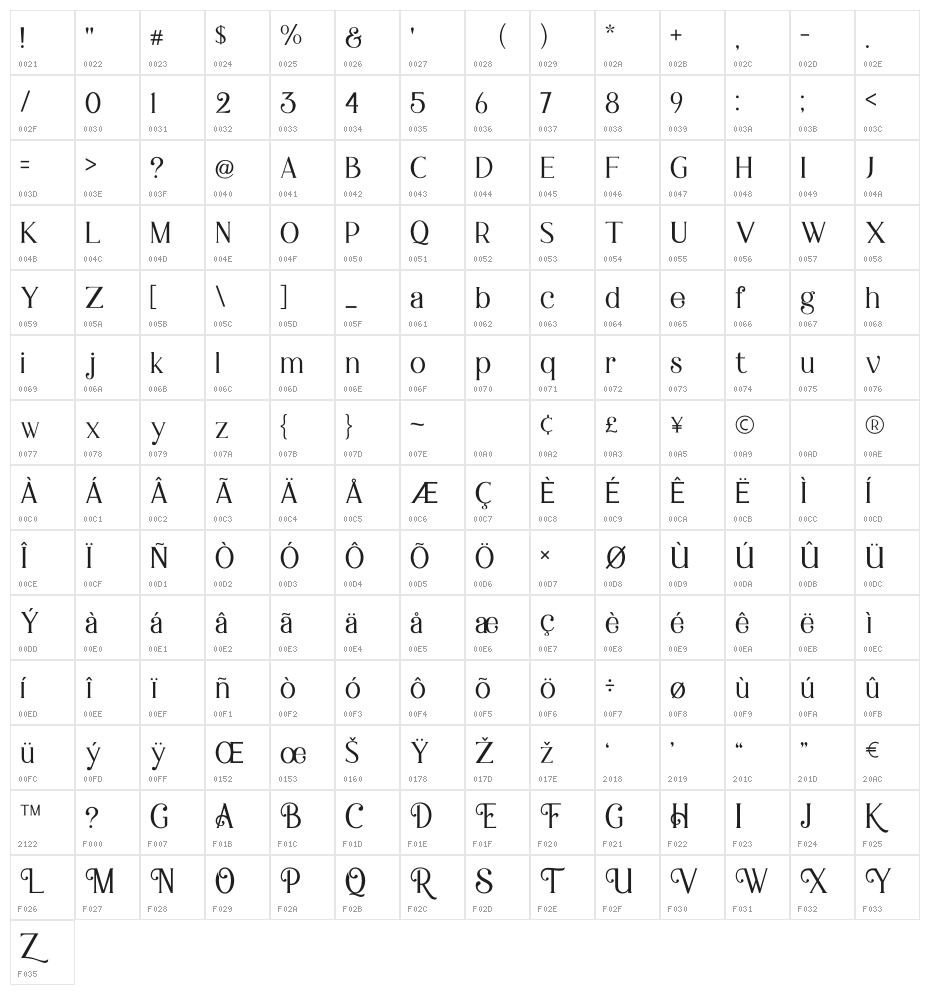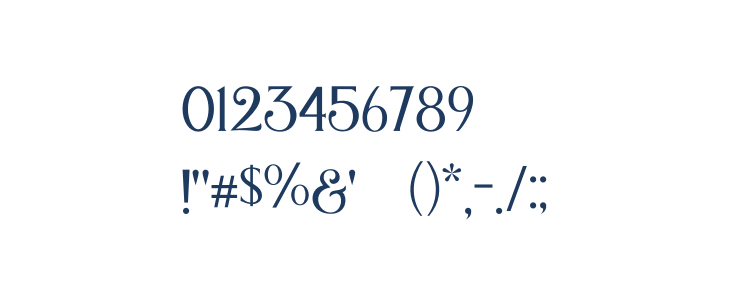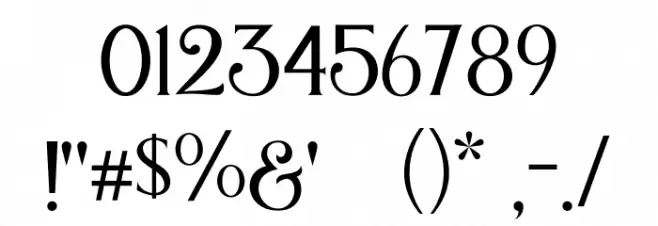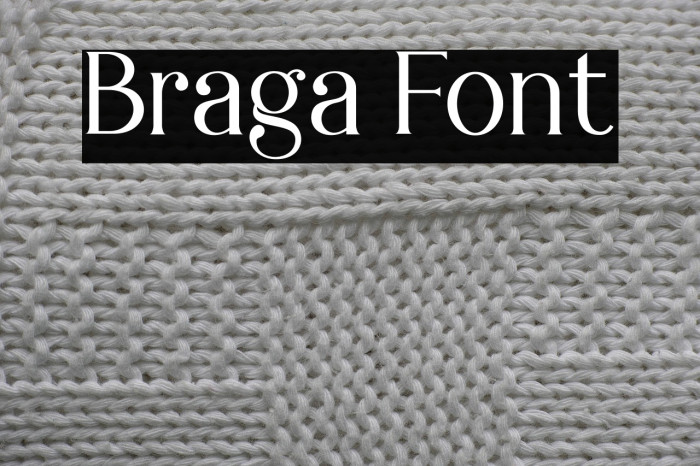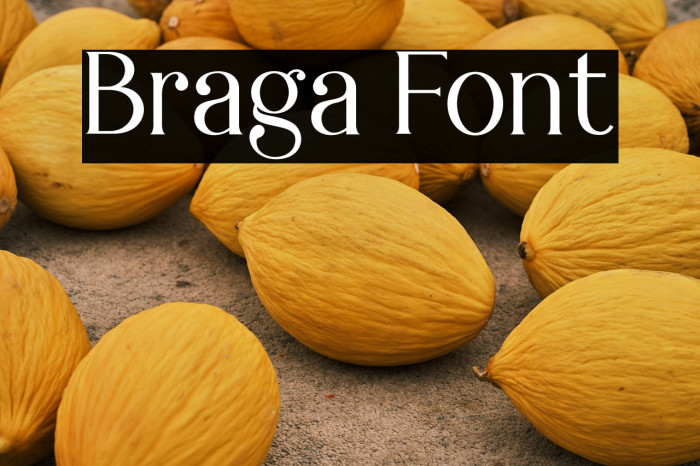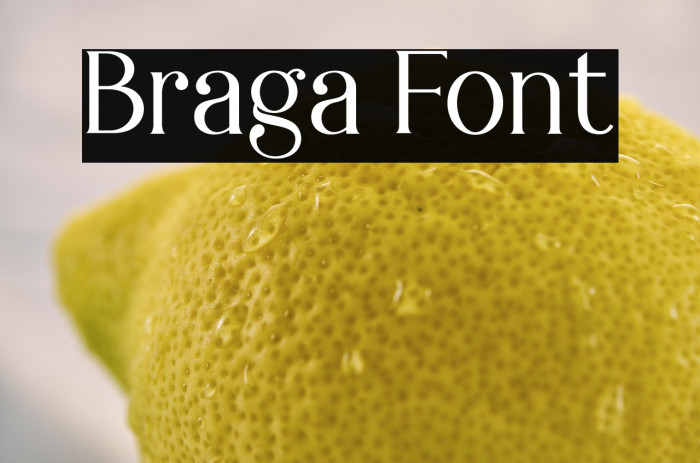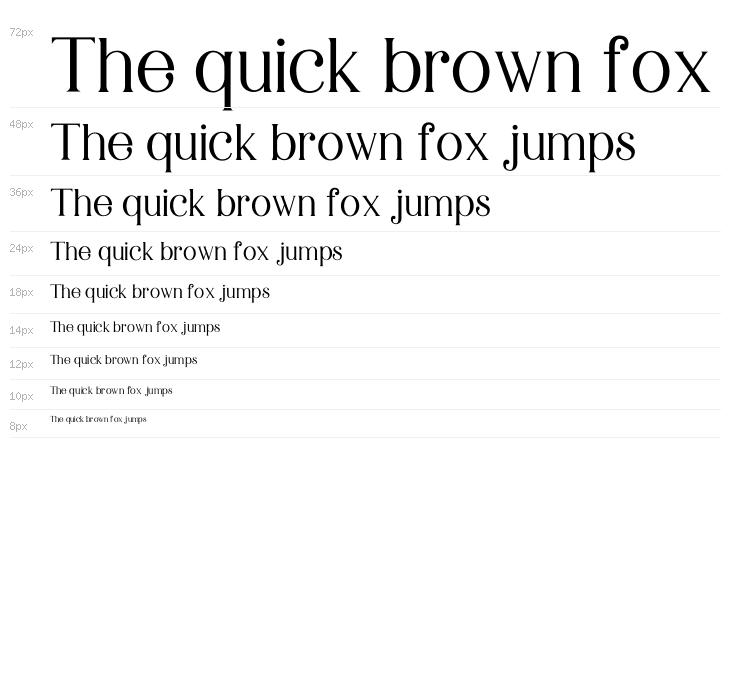
Braga Font
Braga Description
This font features a sophisticated and elegant serif style, characterized by its high contrast between thick and thin strokes. The serifs are sharp and pronounced, adding a touch of classic refinement. The uppercase letters exhibit a stately presence, while the lowercase letters maintain a graceful flow. The numerals are well-proportioned, complementing the overall aesthetic. Special characters are distinct and maintain the font's elegant style. This typeface is versatile, suitable for both digital and print media, offering a timeless appeal.